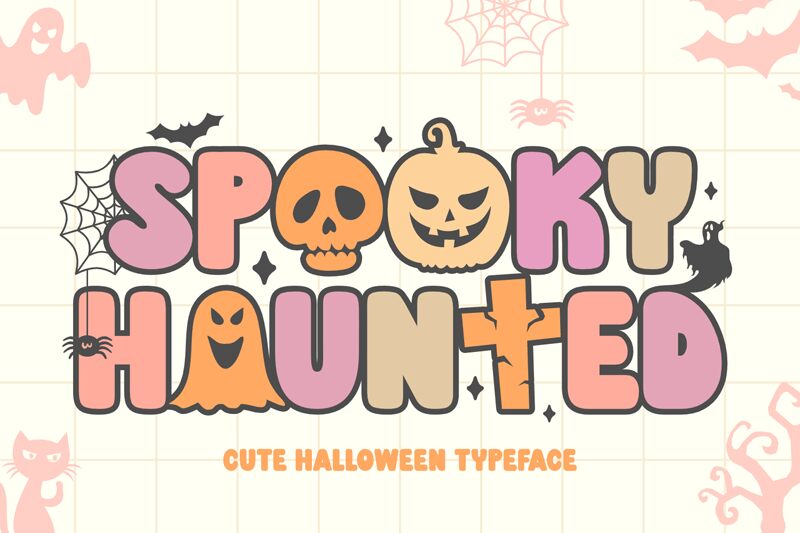
Spooky Haunted font by keithzo is a free font that embodies a cheerful, whimsical, and eclectic design. Appropriately cartoonish, childlike, and vibrant, it much suits many fun projects. Characters are rounded, friendly, and playful looking, as each letter looks equally excited in both lowercase and uppercase. The alphabet letters include both lowercase and uppercase and can be used to make Halloween spooky text and graphics.
With the font's flexibility and themes, it can be used in large-scale text, graphics, and animation. Posters, signage, and videos are only the tip of the iceberg, while it can also work with smaller-scale use cases like book covers, stickers, shirts, badges, and branding if not part of a bigger project.